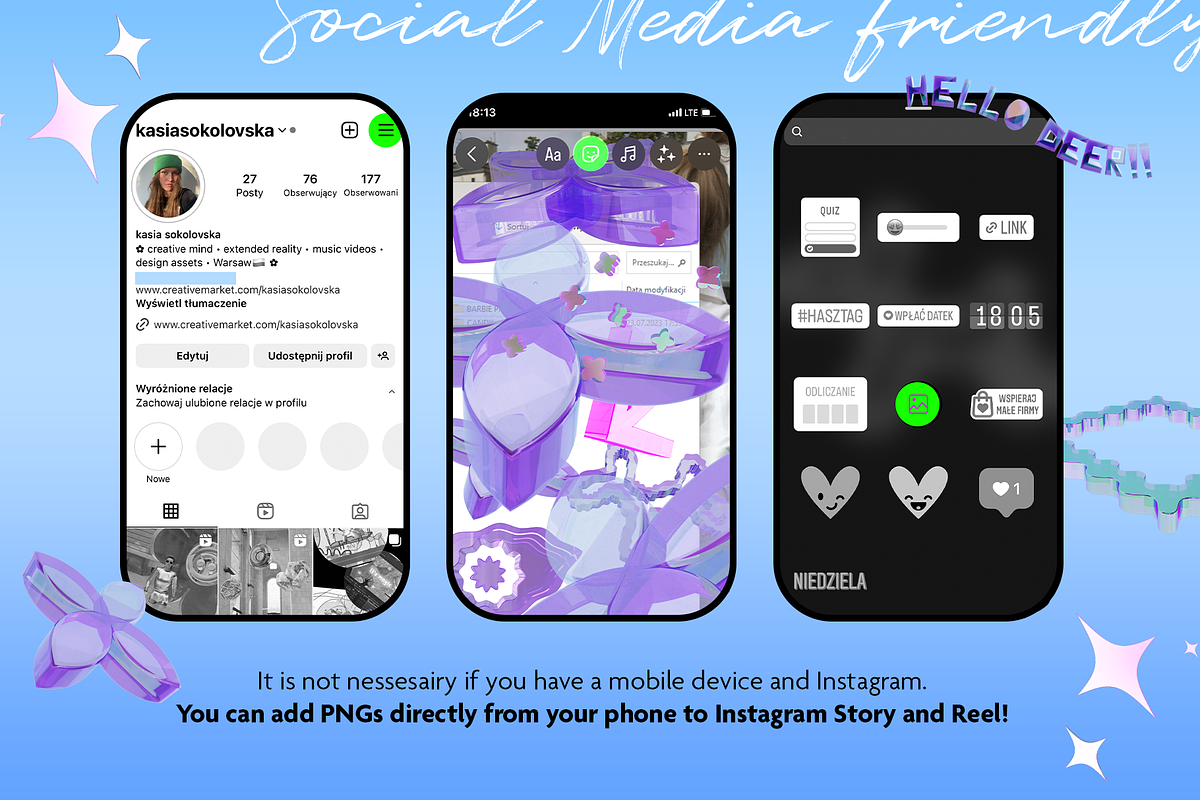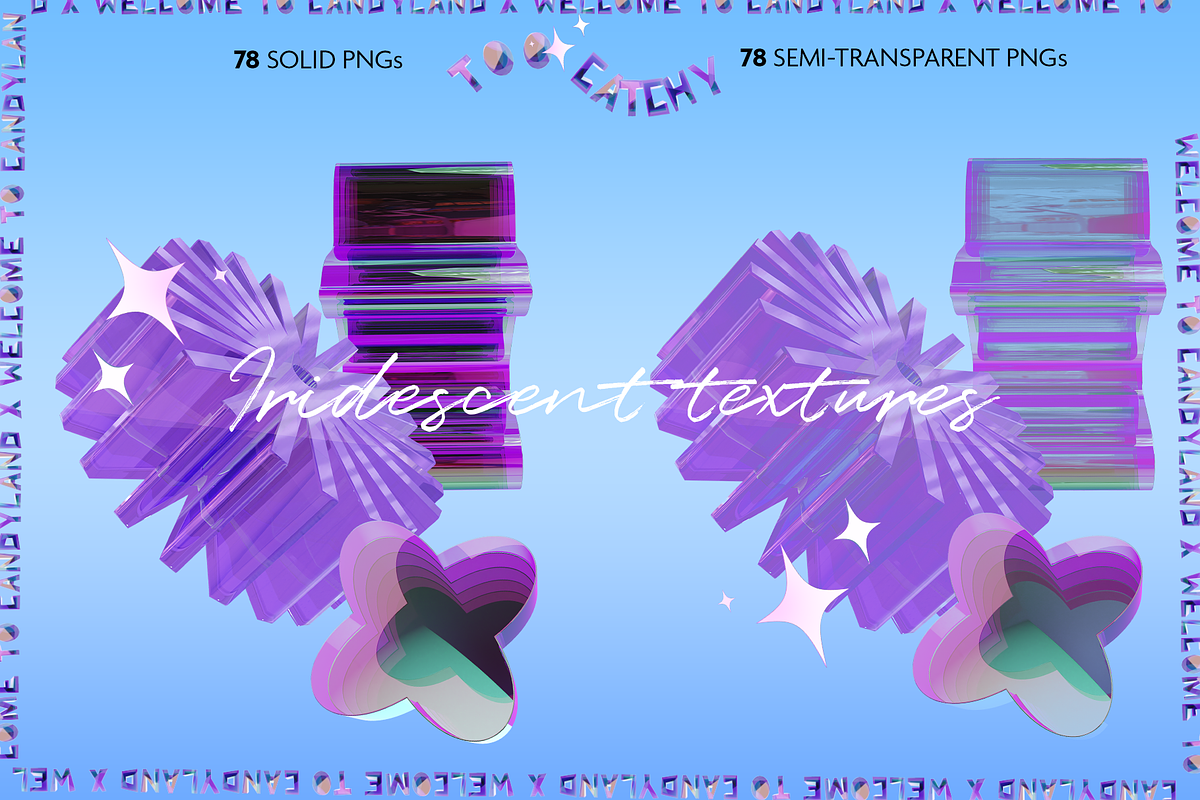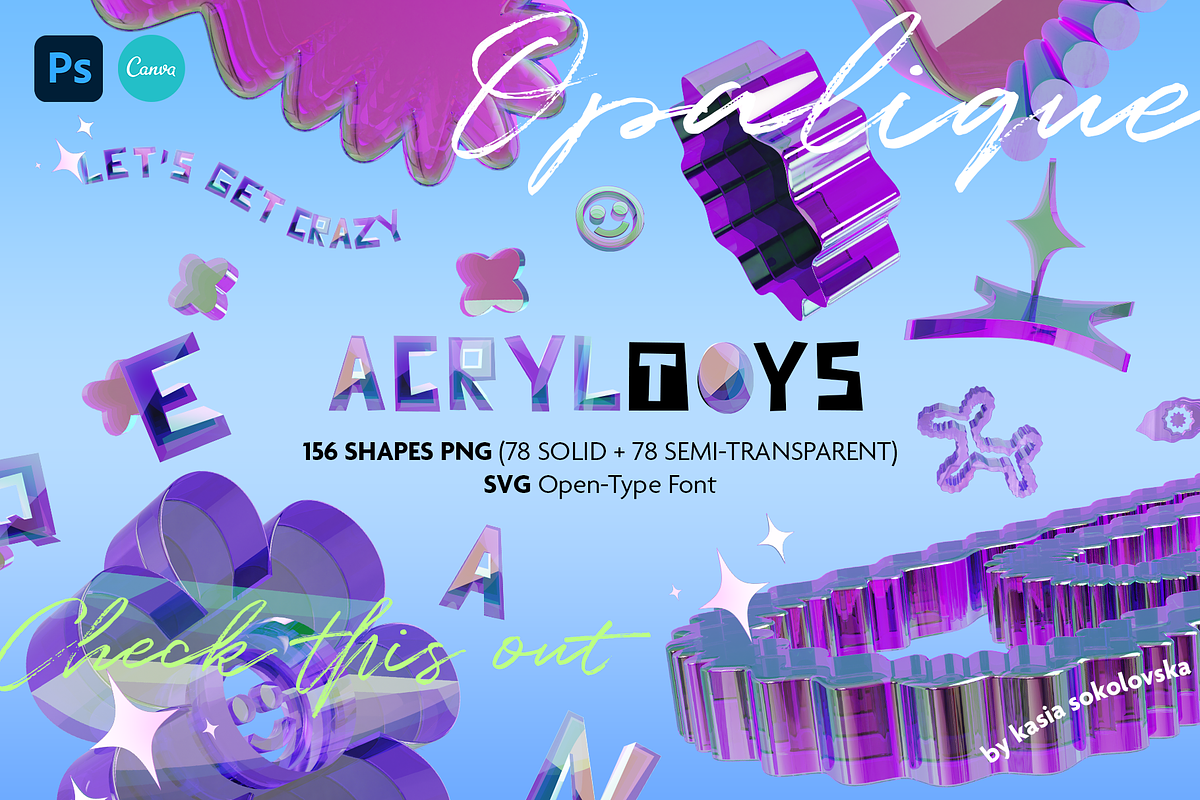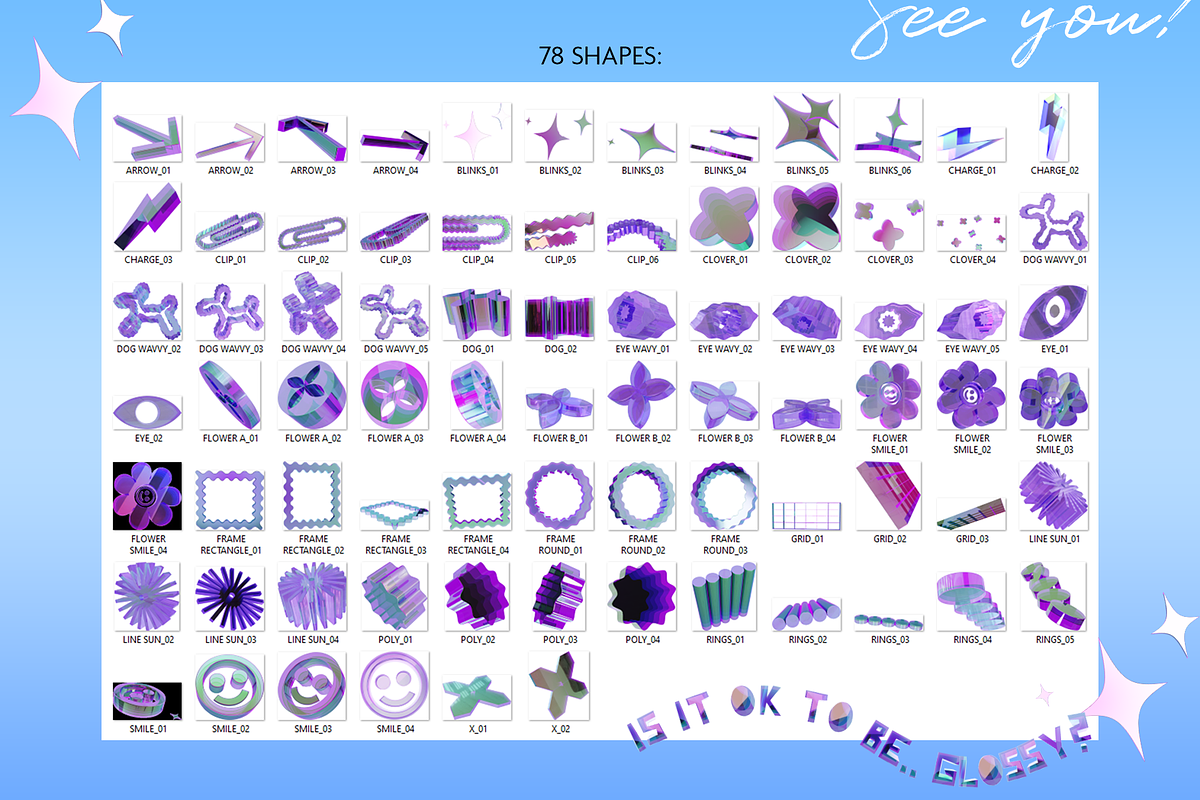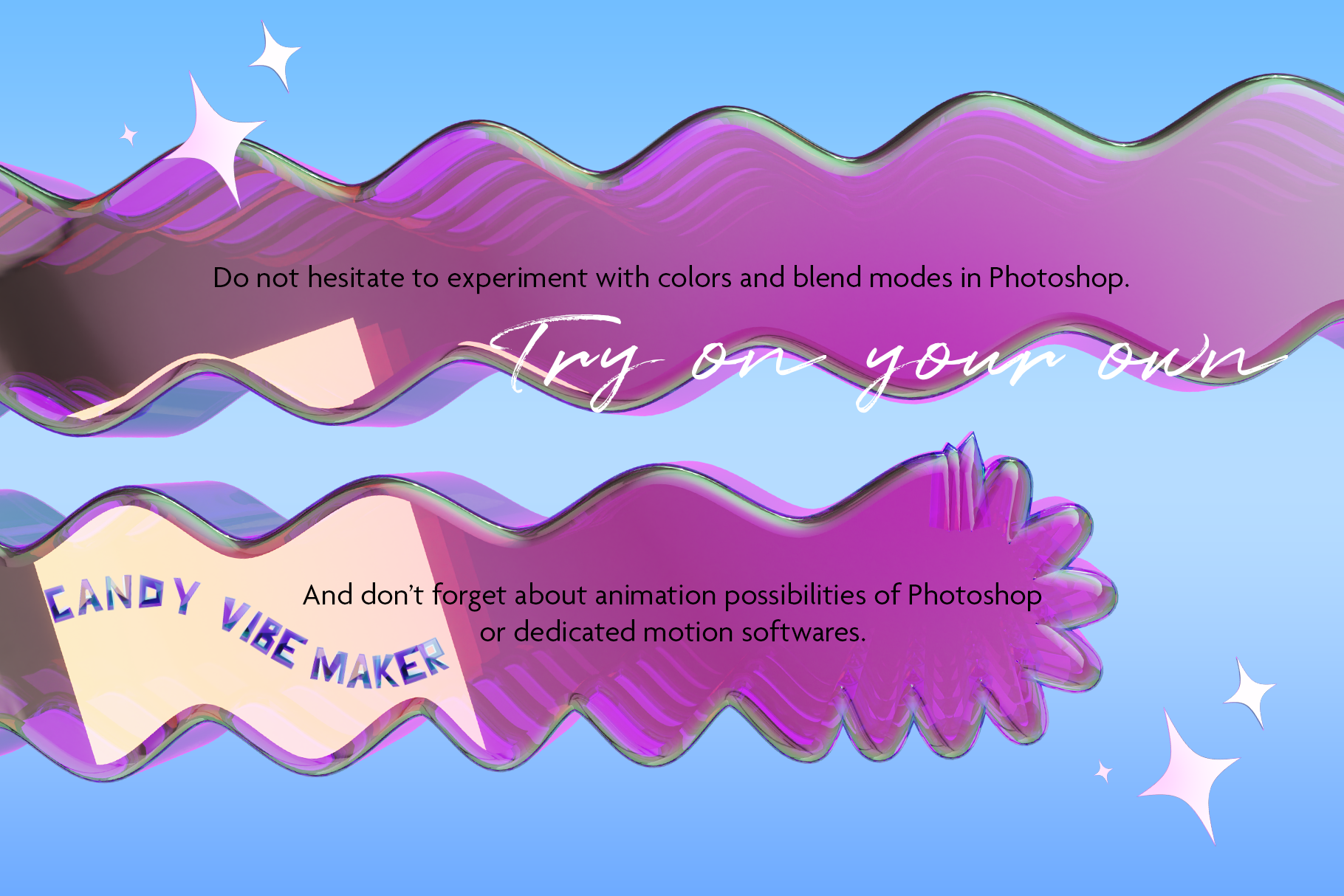
Iridescent SVG Font PNG Plastic 3d
inside Iridescent 156 transparent, glossy, holographic acryl PNGs:
- Acrylfont SVG Font OTF
- ABCDEFGHIJKLMNOPQRSTUVWXYZ 0123456789 €$¥ .?!’_-@#%/ PNG